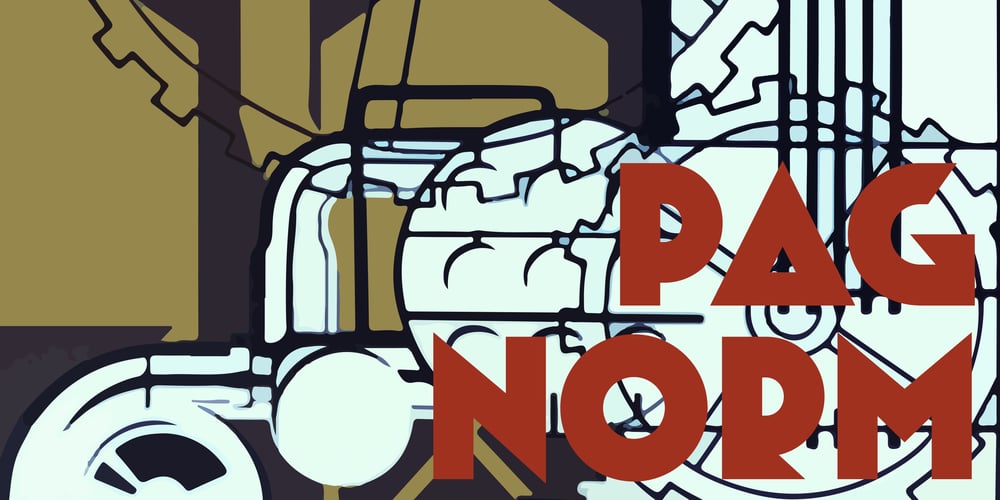
PAG Norm Font Family was designed by Ryoichi Tsunekawa and published by Prop-a-ganda. PAG Norm contains 1 styles and family package options. Prop-a-ganda offers retro-flavored fonts inspired by lettering on retro propaganda posters, retro advertising posters, retro packages all the world over. This is perfect font for your retrospective project. PAG Norm is display font that consists of triangle and circle. This is vintage inspired font, but there is a futuristic aspect. The disunity evoke special feeling to whom see the typography of this font. PAG Norm is well-suited for title of poster, website, flyer and package.